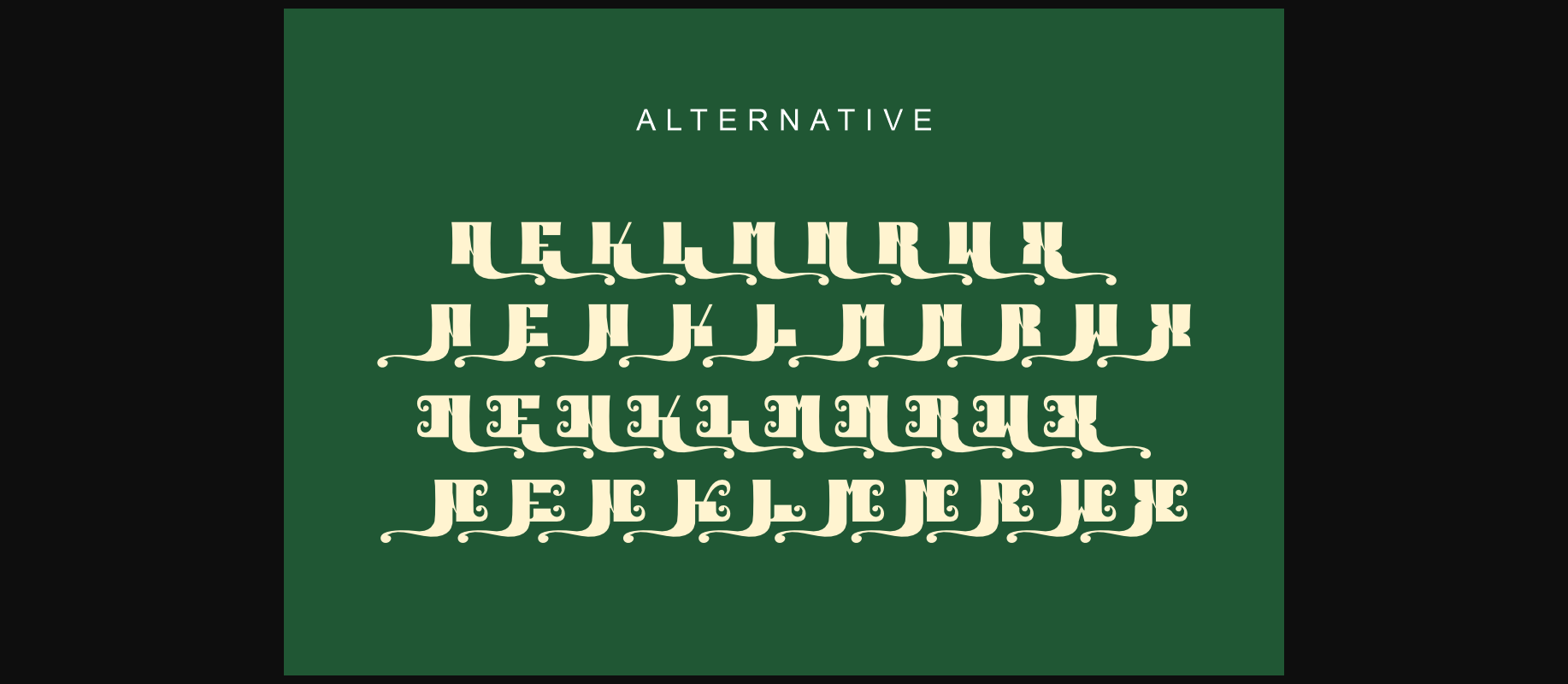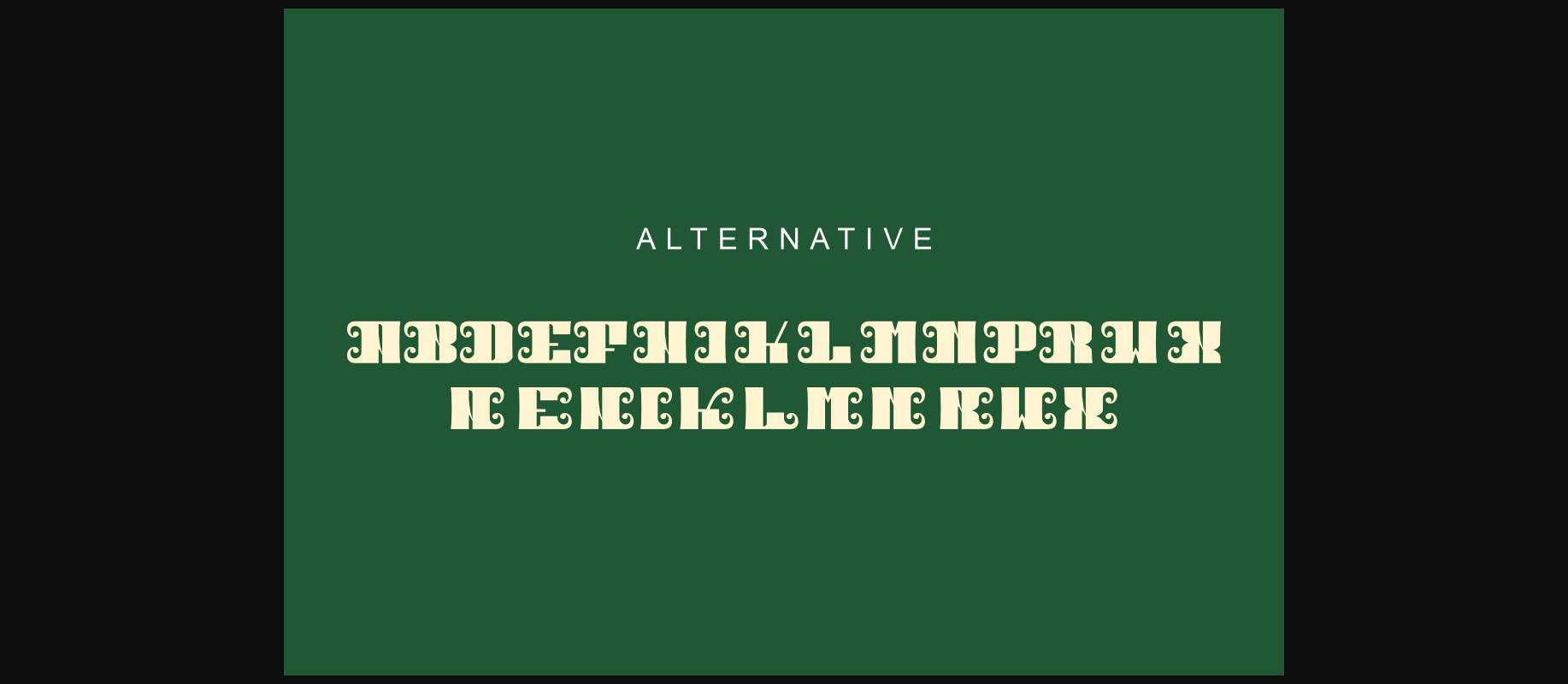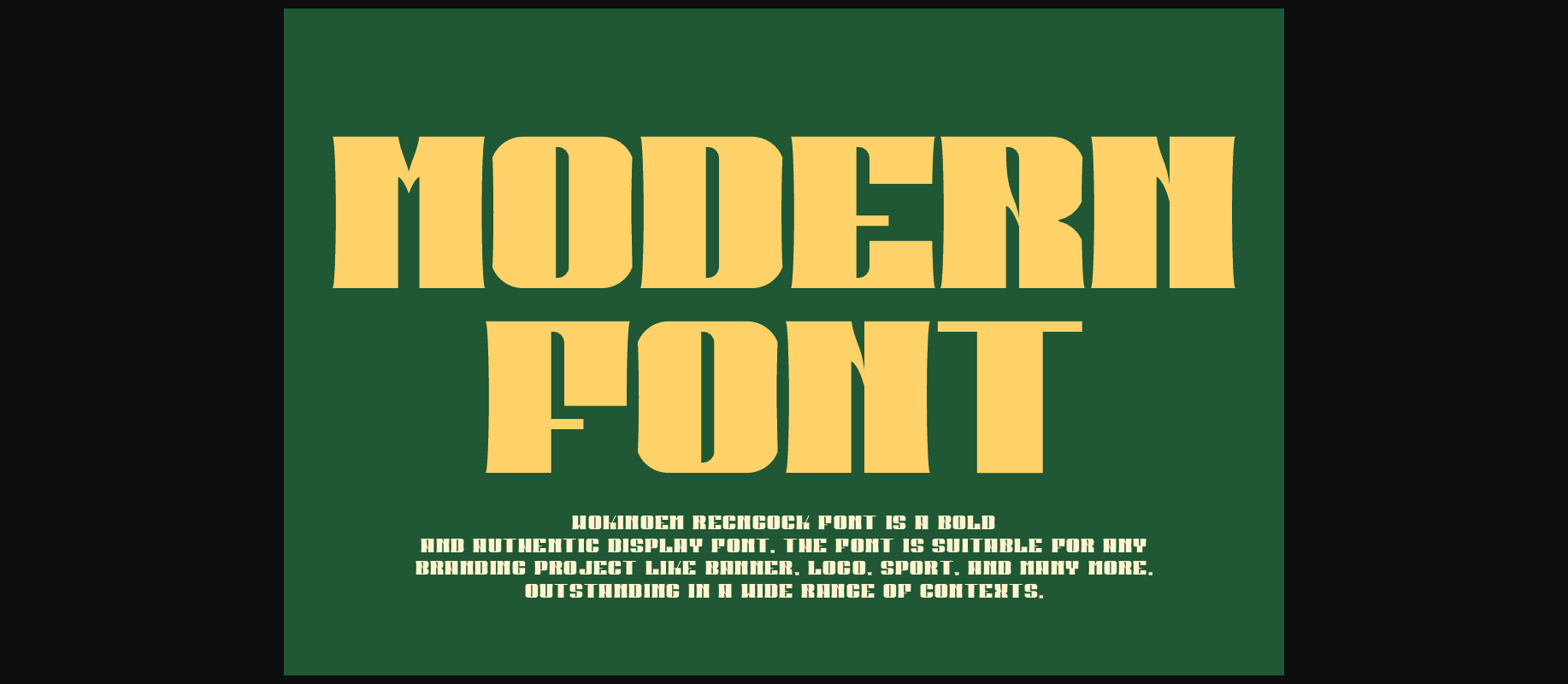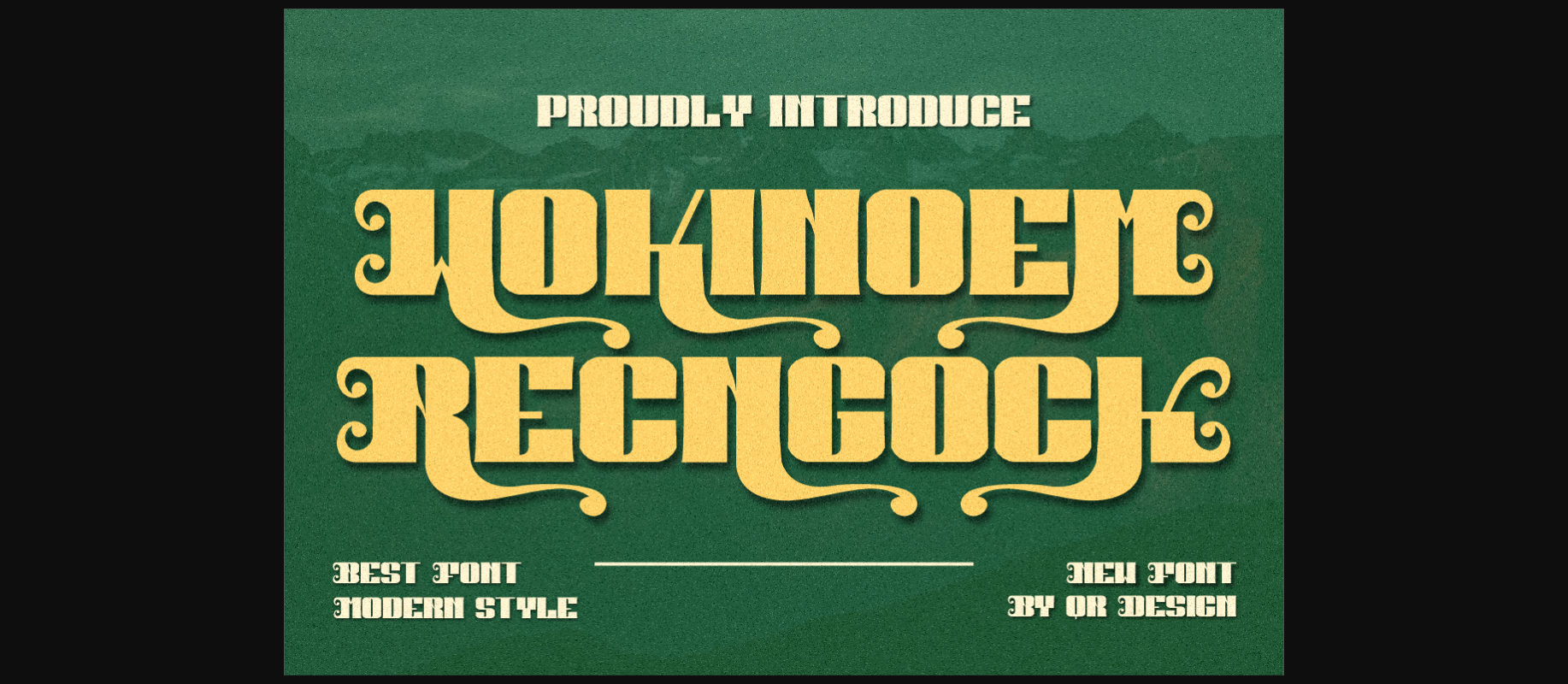
About Wokinoem Recngock Font
Wokinoem Recngock Font is a bold and authentic display font.
The font is suitable for any branding project like logos, sports, and many more.